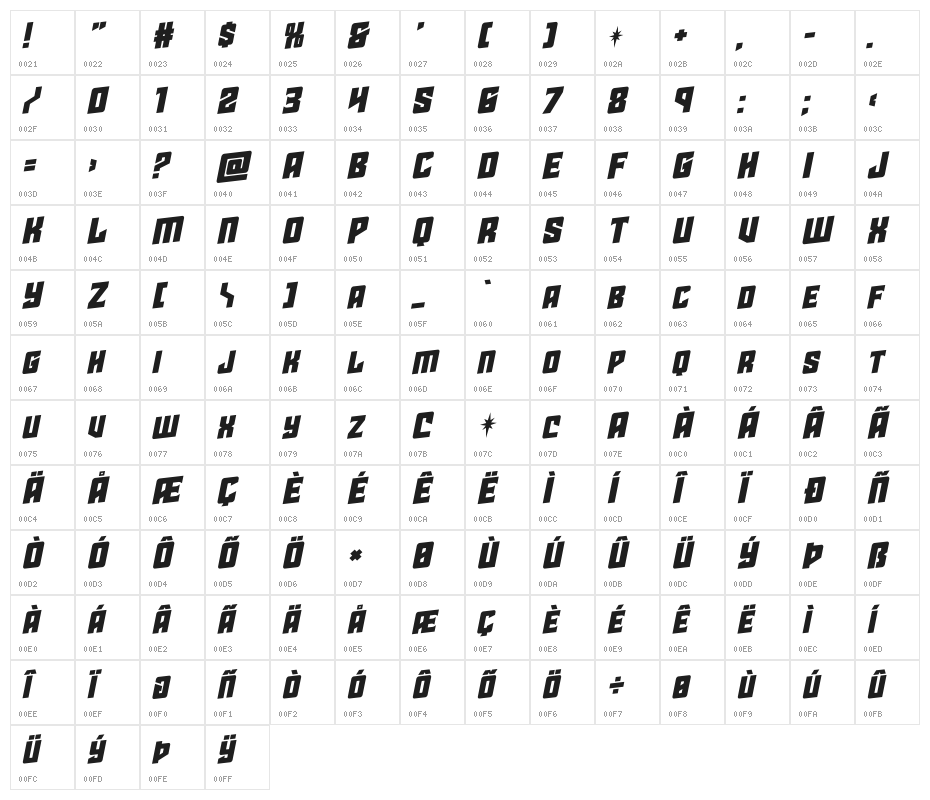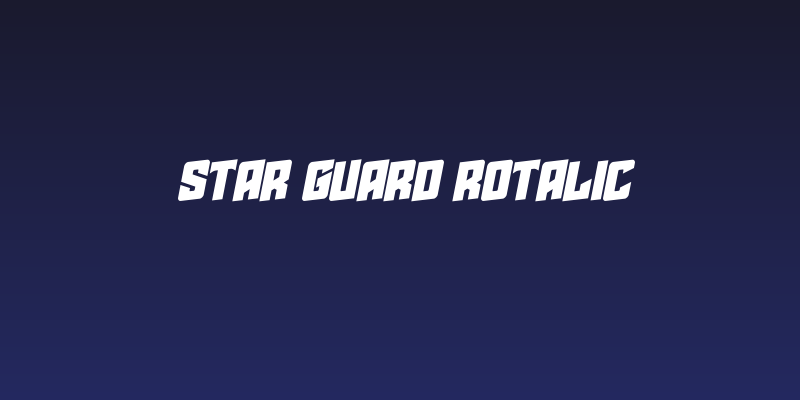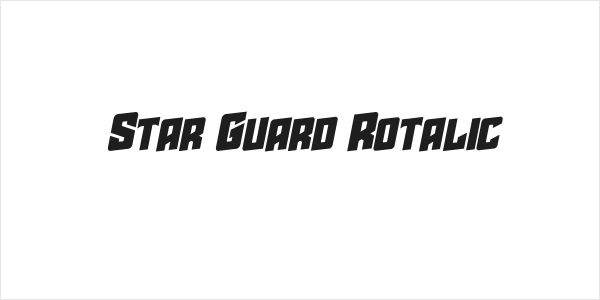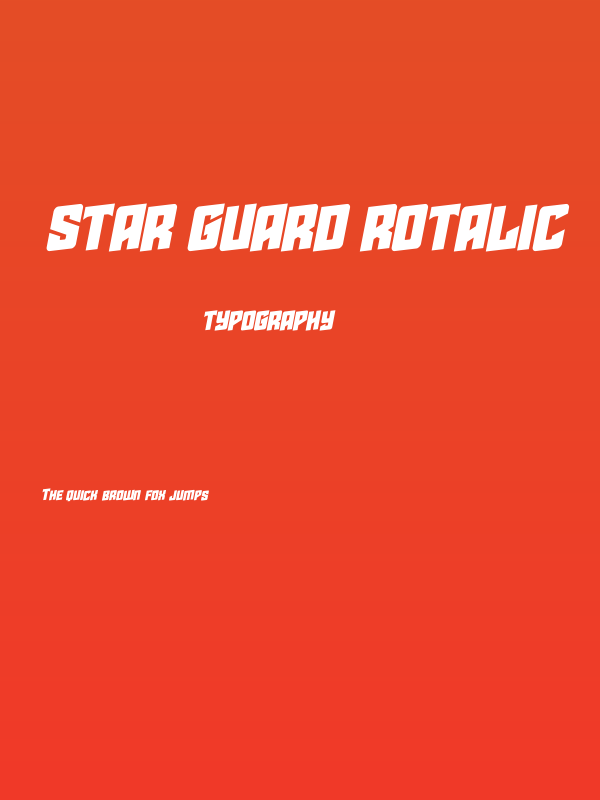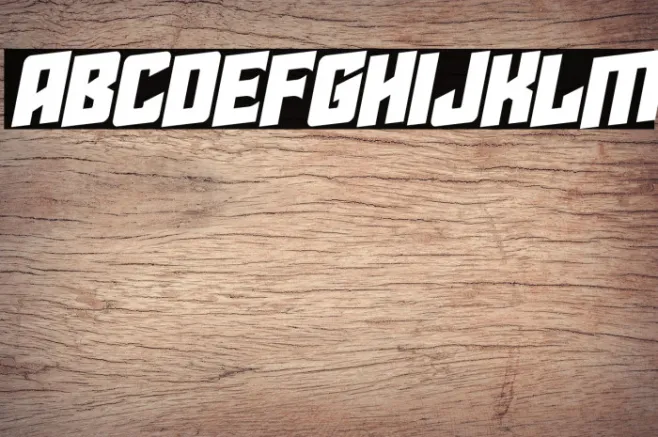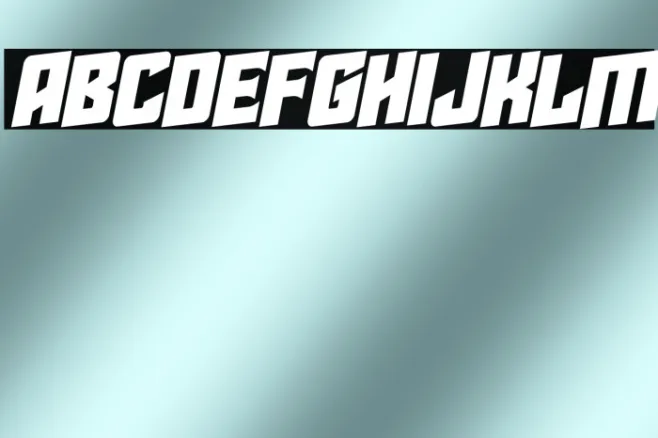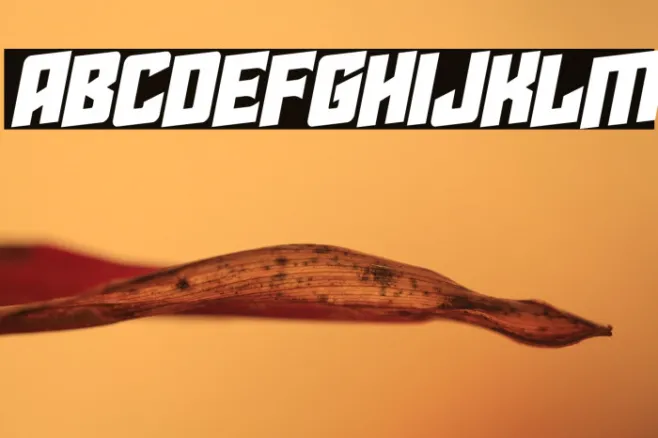
Star Guard Rotalic Font
Star Guard Rotalic Description
This font features a bold, dynamic design with a strong slant, giving it a sense of movement and energy. The characters are thick and robust, with sharp angles and a slightly condensed appearance. The uppercase and lowercase letters maintain a consistent style, with the lowercase being slightly smaller but equally impactful. Numbers and special characters follow the same bold and angular design, ensuring uniformity across all glyphs. The font's aggressive and modern look makes it stand out, perfect for projects that require a strong visual impact.
| Proposed Projects | Ideal for sports branding, action movie posters, video game titles, and dynamic advertising campaigns. |